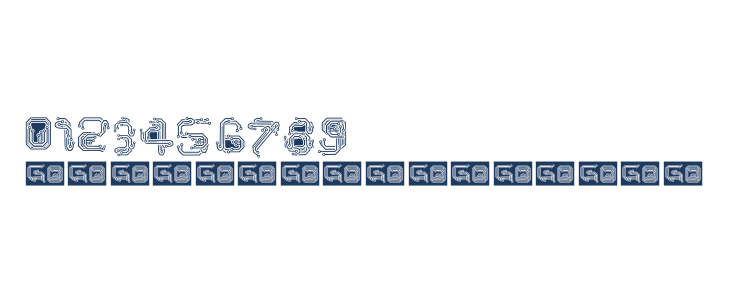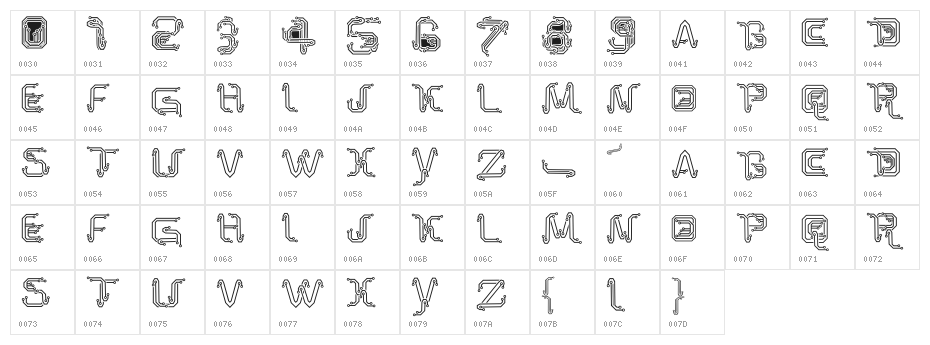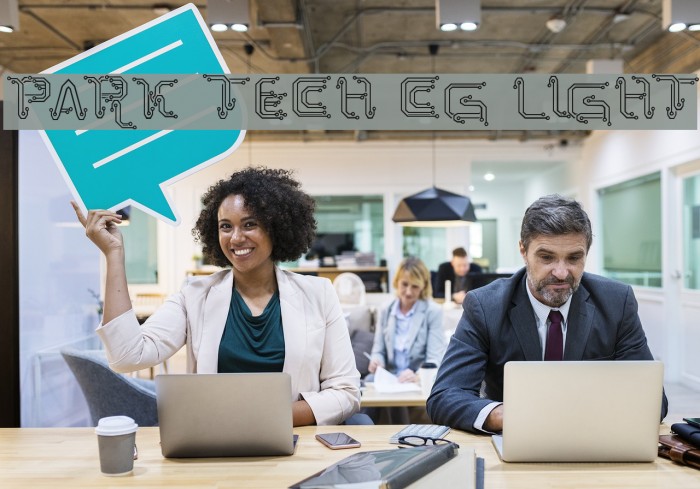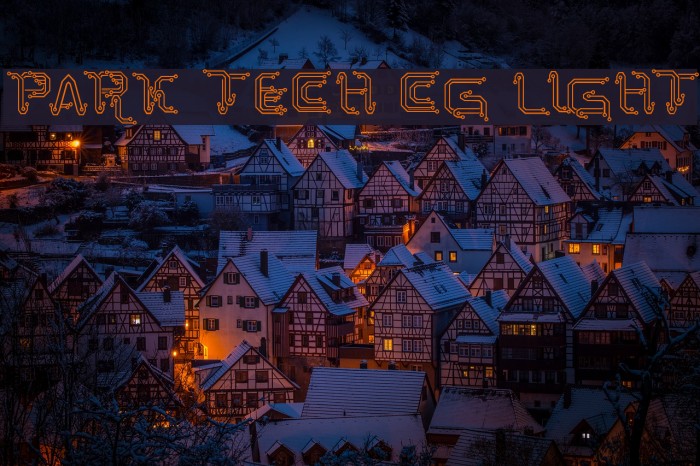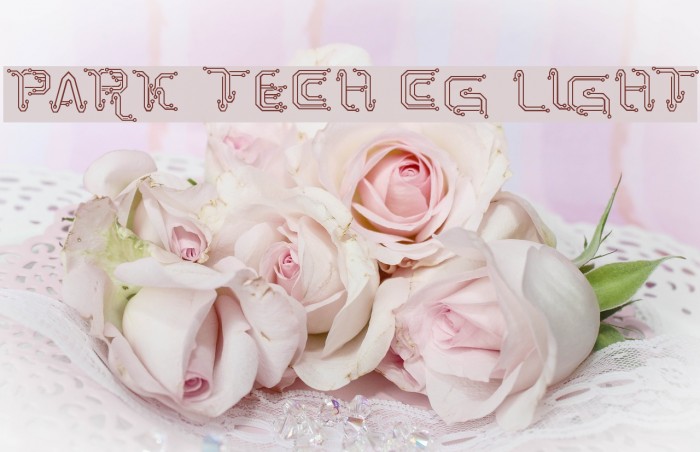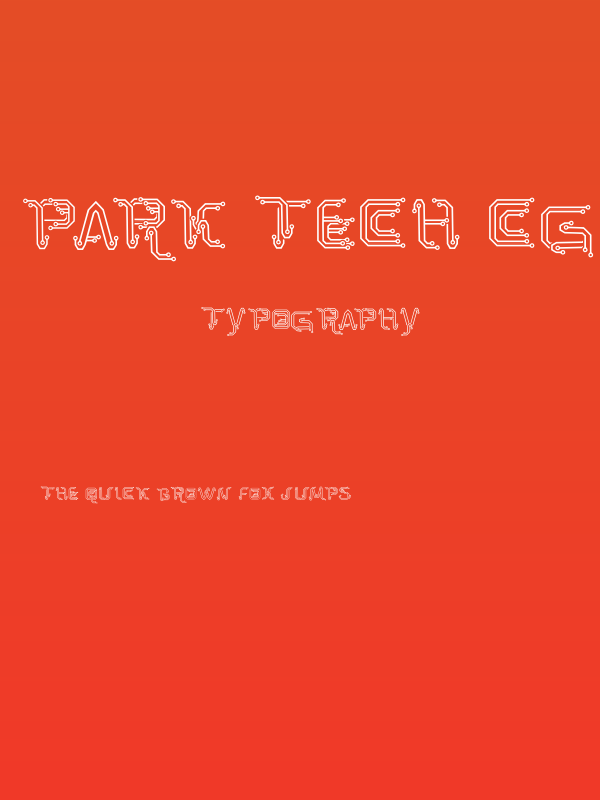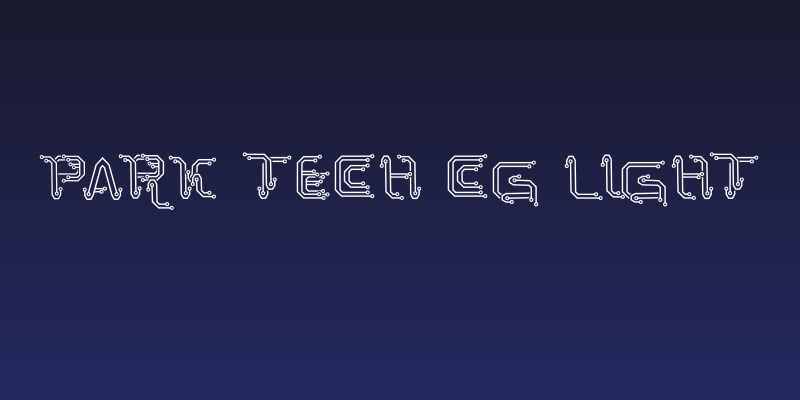
Park Tech CG Light Font
Park Tech CG Light Description
This font embodies a futuristic and technological aesthetic, reminiscent of circuit board designs. Each character is crafted with intricate lines and nodes, giving the appearance of electronic pathways. The design is highly detailed, with a consistent pattern that mimics the connections found in digital circuits. This font is ideal for projects that require a modern and tech-savvy look, making it perfect for technology-related branding, digital interfaces, or sci-fi themed designs. The characters are evenly spaced, ensuring readability while maintaining the complex design elements.
| Use Case | Logos, Headlines, Digital Interfaces |
| Proposed Projects | Ideal for tech branding, digital interfaces, sci-fi themes, and futuristic design projects. |